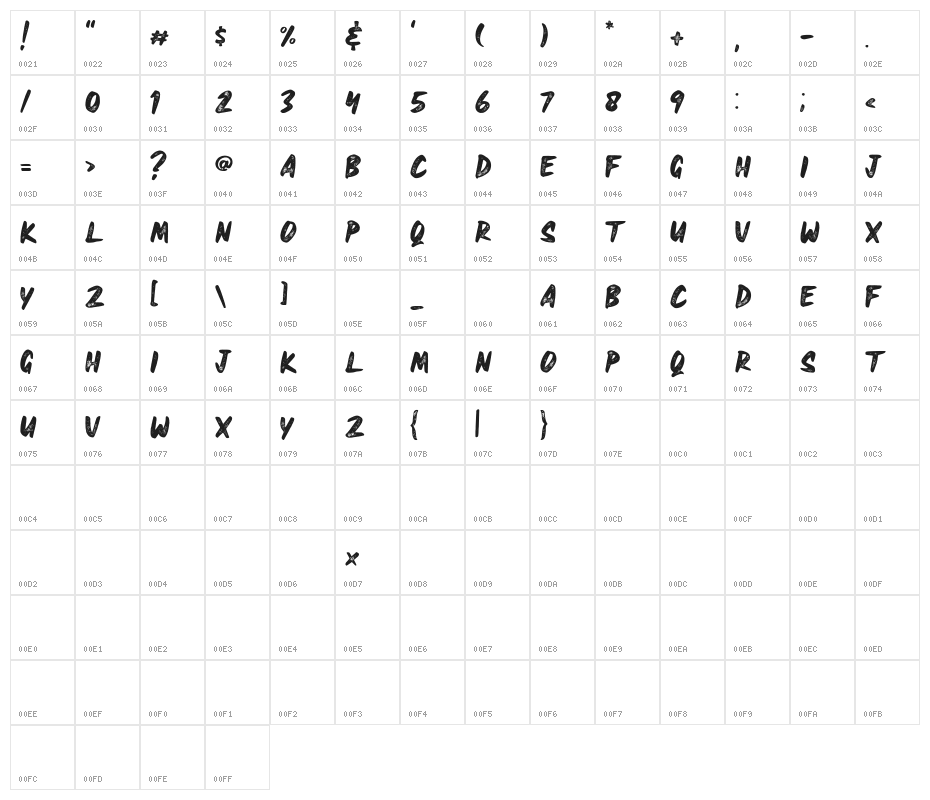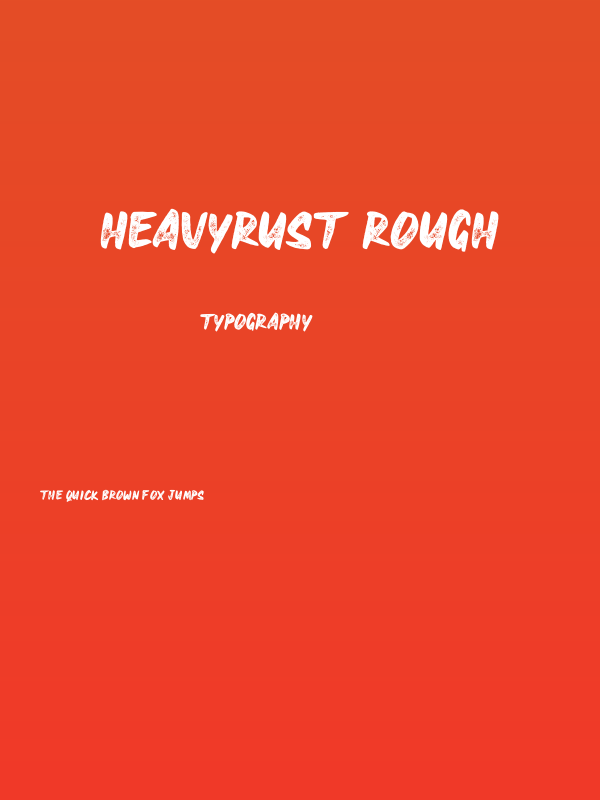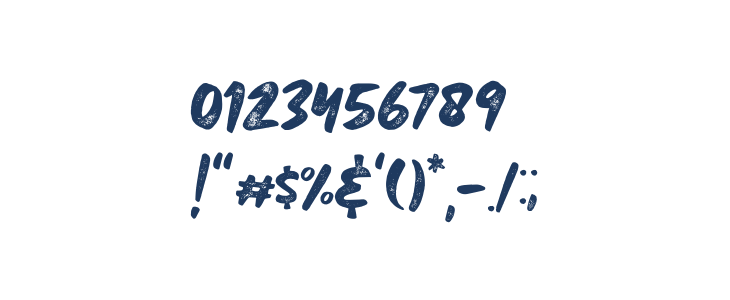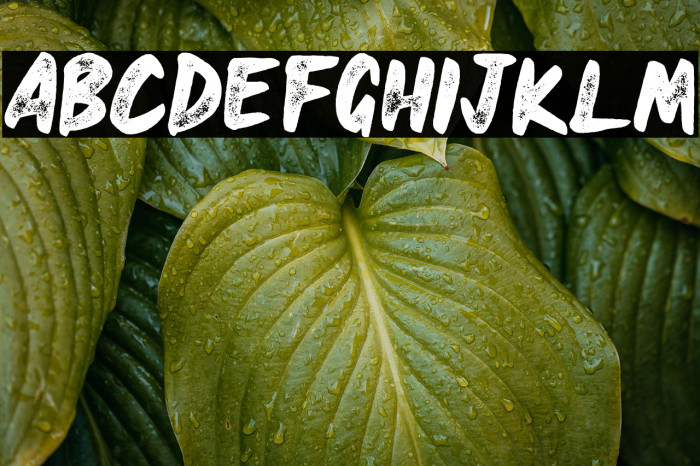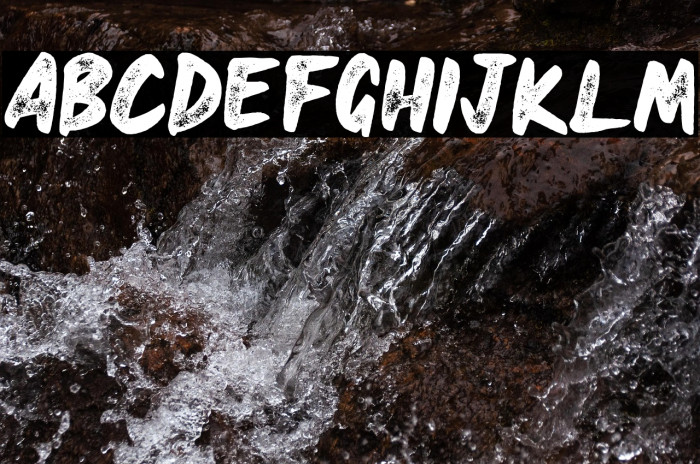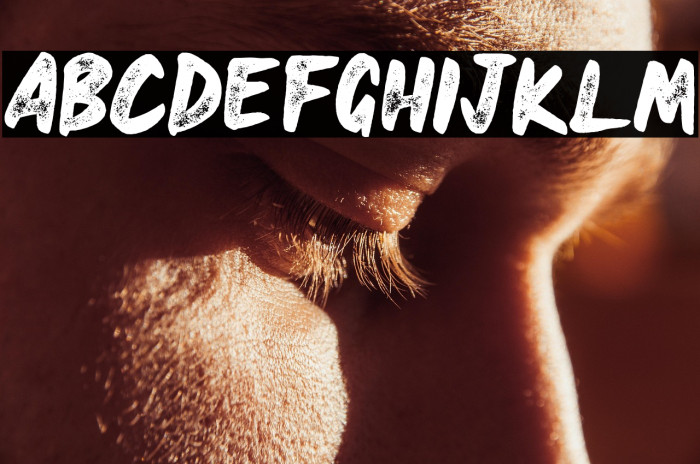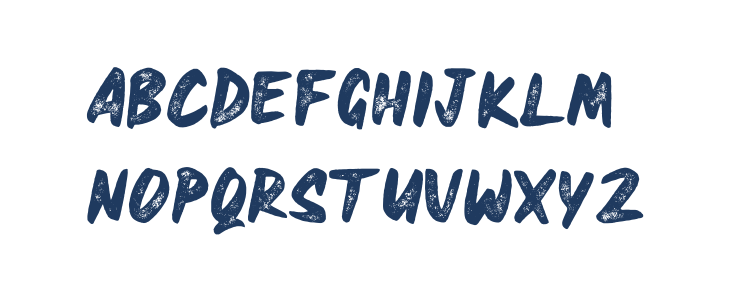
HEAVYRUST ROUGH Font
HEAVYRUST ROUGH Description
This font features a bold, distressed style with a rough texture that gives it a rugged, hand-crafted appearance. The letters are uppercase and exhibit a dynamic, slightly slanted orientation, adding a sense of movement and energy. The texture within each character mimics a worn, weathered look, reminiscent of vintage signage or industrial design. The numbers and special characters maintain this consistent style, ensuring a cohesive look across all glyphs. This font's unique aesthetic makes it stand out, perfect for projects that require a bold statement.